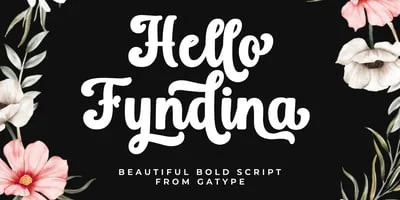
Hello Fyndina Font
Hello Fyndina Font is perfect for friendly greeting cards, welcoming hospitality brands, warm personal branding, cheerful social platforms, approachable customer service materials, friendly boutique identity, inviting café signage, welcoming event planning, pleasant lifestyle campaigns, and heartwarming applications that celebrate the joy of human connection and friendly communication.
What makes Hello Fyndina Font truly exciting is its genuine capture of warm hospitality and friendly charm that creates an instantly welcoming and approachable typographic voice for positive human interactions. This exceptional typeface embodies the spirit of genuine friendliness with its inviting letterforms and warm character that convey both authentic kindness and professional approachability. The font's friendly personality and welcoming design make it perfect for brands seeking to communicate warmth, accessibility, and the transformative power of genuine human connection that makes people feel valued, welcomed, and appreciated from the very first interaction.
The Hello Fyndina Font family includes multiple weights and styles: Light, Regular, Medium, Bold, and Friendly variations designed for maximum welcoming impact. Each family member maintains the distinctive warm character while offering flexibility for diverse hospitality applications and friendly branding systems. The comprehensive character set supports welcoming typography needs and friendly design elements, making it suitable for international hospitality communications.
When you choose Hello Fyndina Font, you're selecting a typography welcome mat that delivers authentic friendly credibility and warm hospitality to every approachable project. This welcoming typeface excels in applications where human warmth and genuine friendliness are essential, delivering exceptional approachable appeal while maintaining authentic kindness. Whether you're designing hospitality brands, friendly campaigns, welcoming materials, or customer-focused marketing content, this font provides the warm sophistication and genuine friendliness that resonates with people who appreciate authentic human connection, welcoming environments, and the beautiful simplicity of genuine kindness and friendly communication.